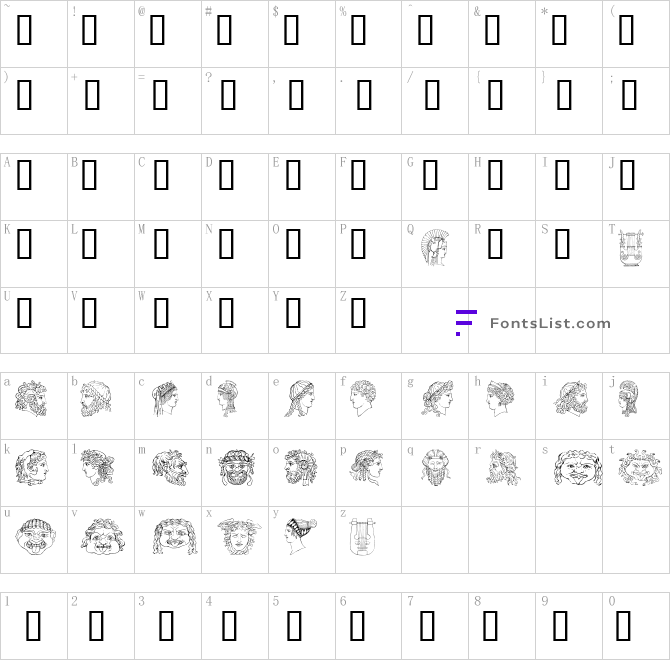
- Font Name:Ancient Heads
Ancient-Heads.ttf is a very beautiful artistic font, Ancient-Heads.ttf is widely used in the design and printing of various books and pictures,Ancient-Heads.ttf has a strong visual impact,Ancient-Heads.ttf is a commonly used font in newspapers, magazines and books, and is used in posters, e-commerce Poster design, store design, logo design, font design and other fields.Ancient-Heads.